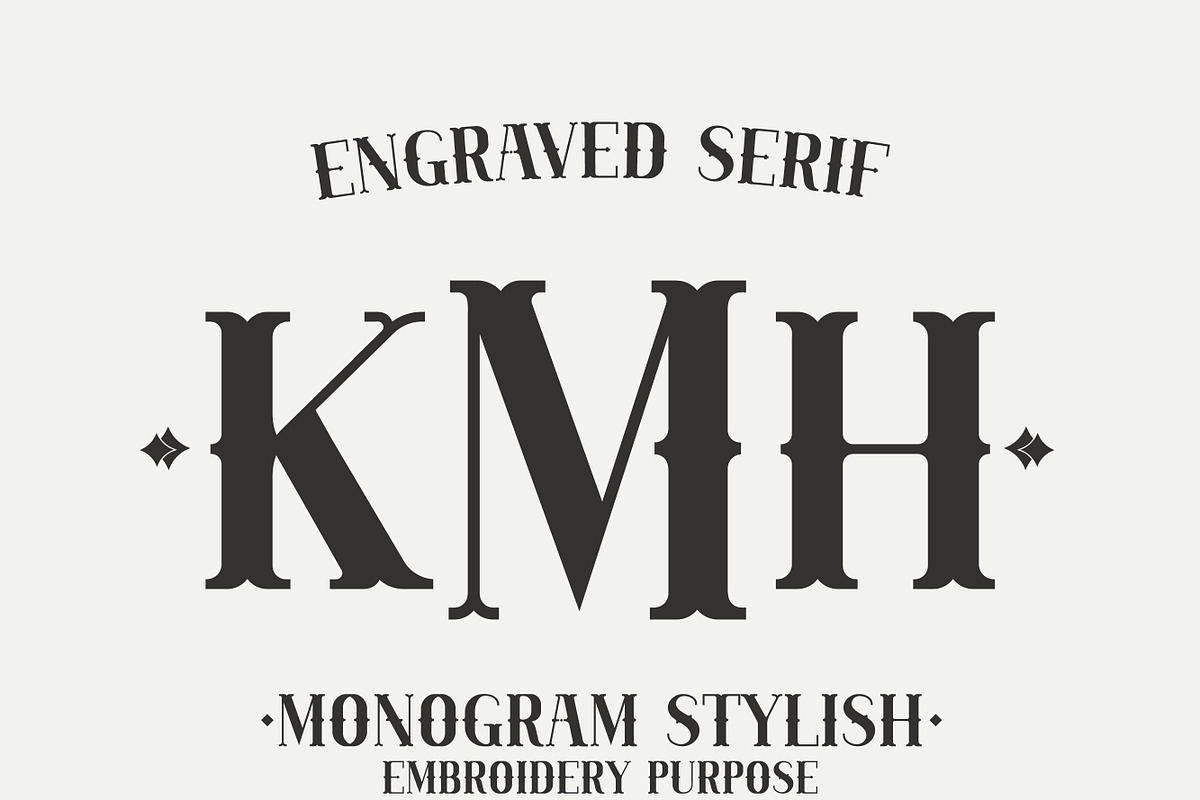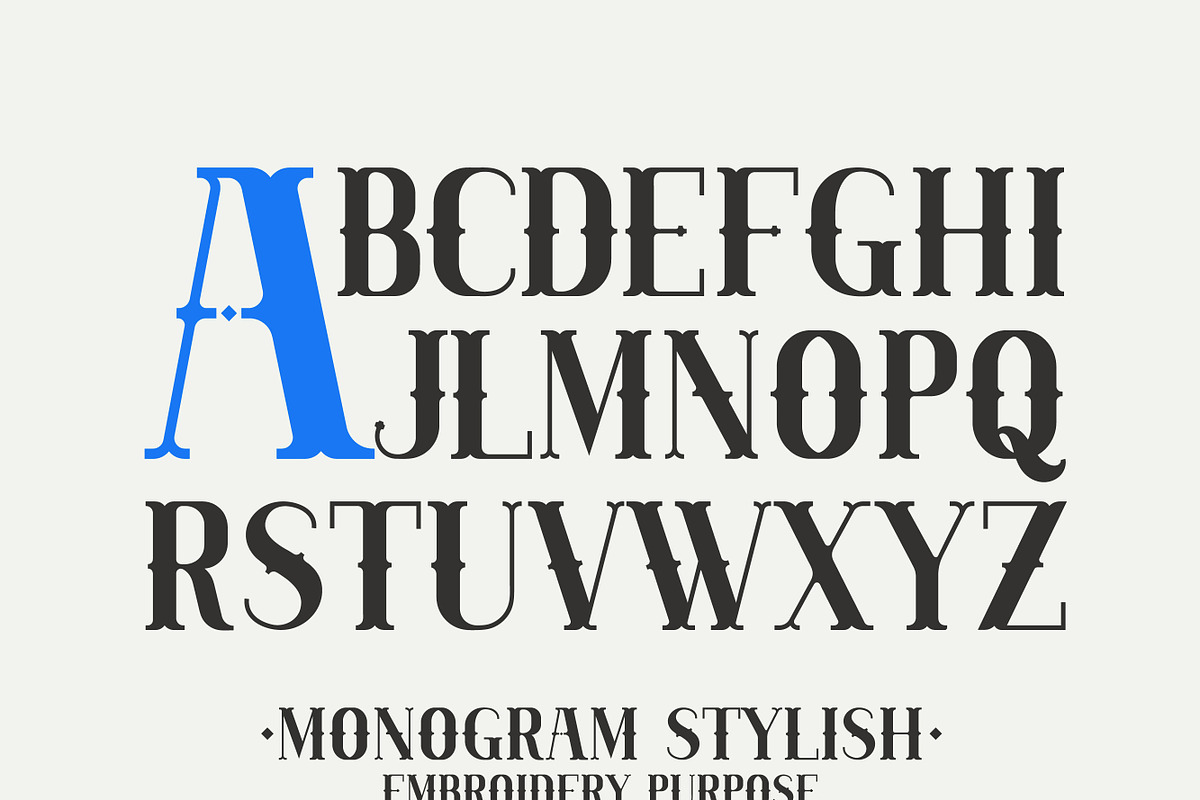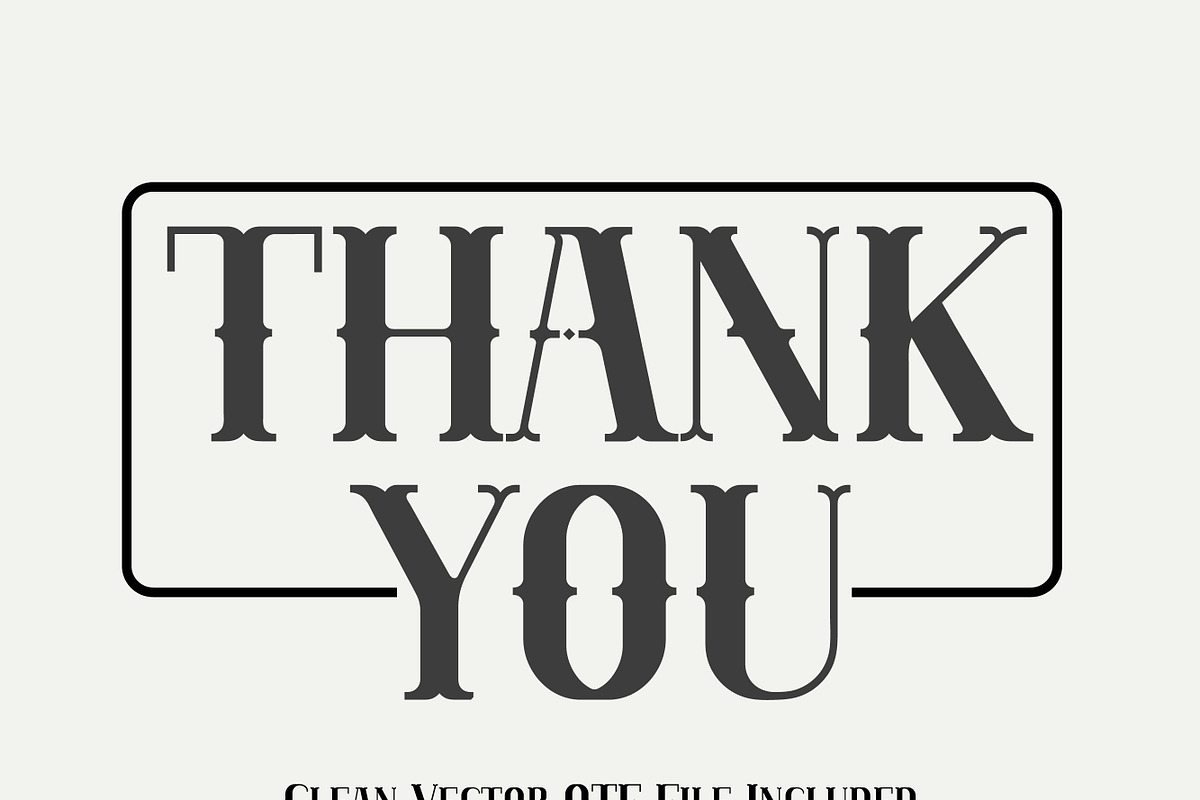
Engraved Serif - Monogram
A classic engraved serif typeface featuring distinctive ornamental cuts and a timeless monogram style. Bold monogram-inspired letterforms and elegant vintage details. Perfect for logos, monograms, embroidery, branding, and premium personalized designs.